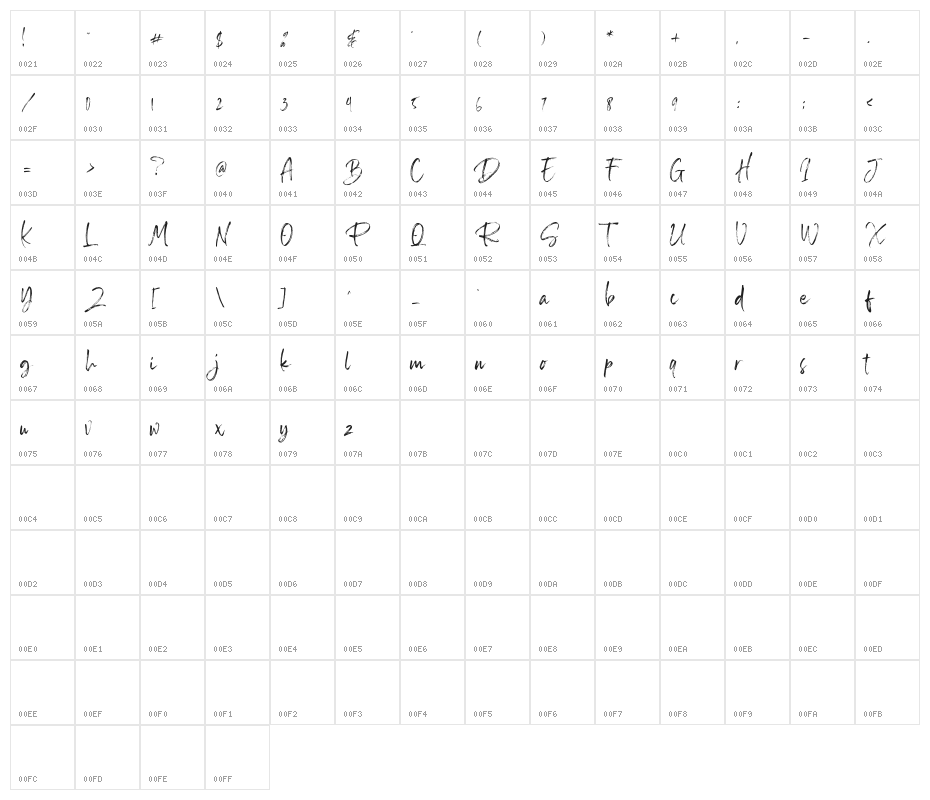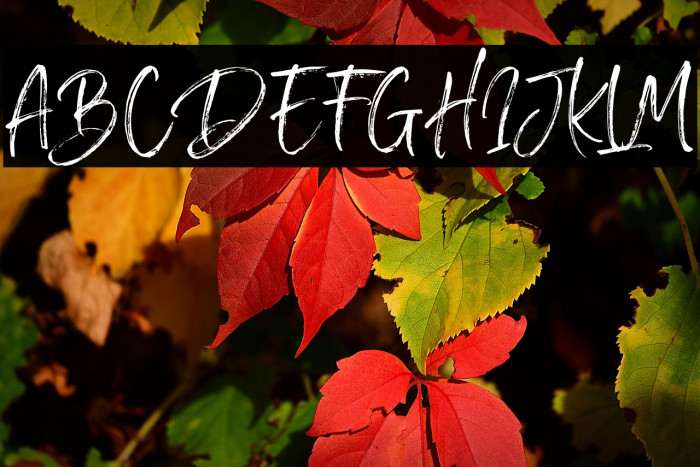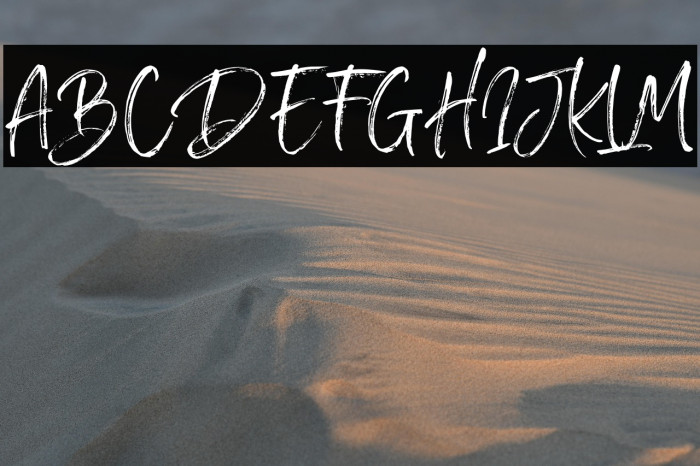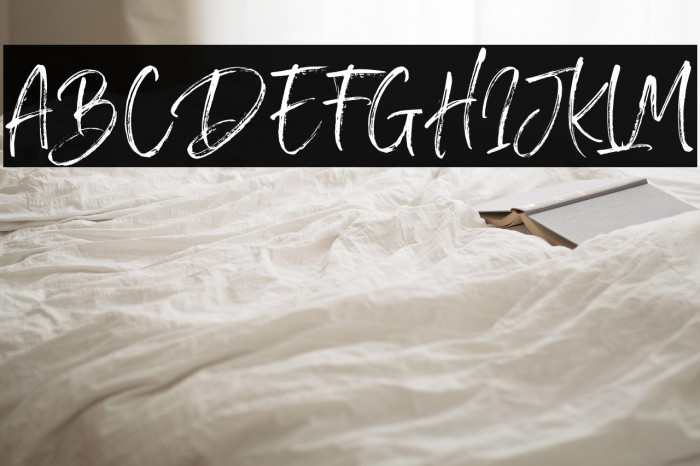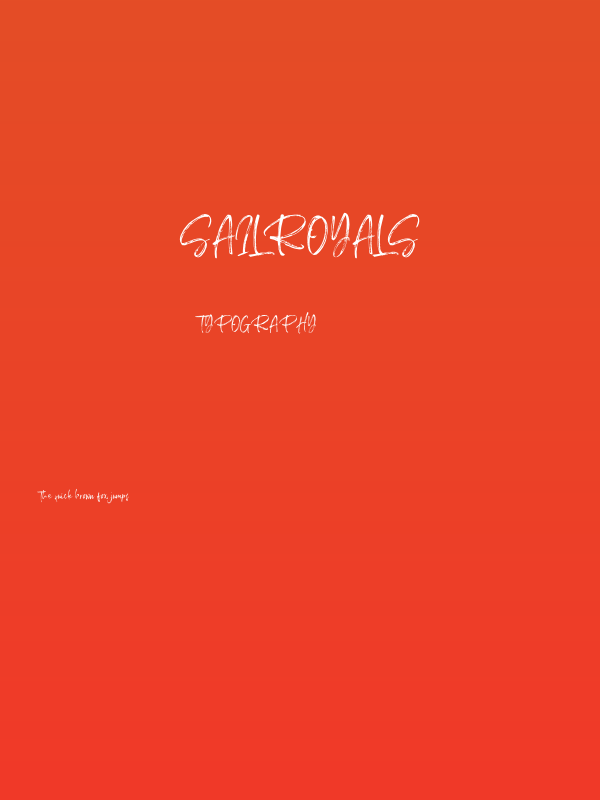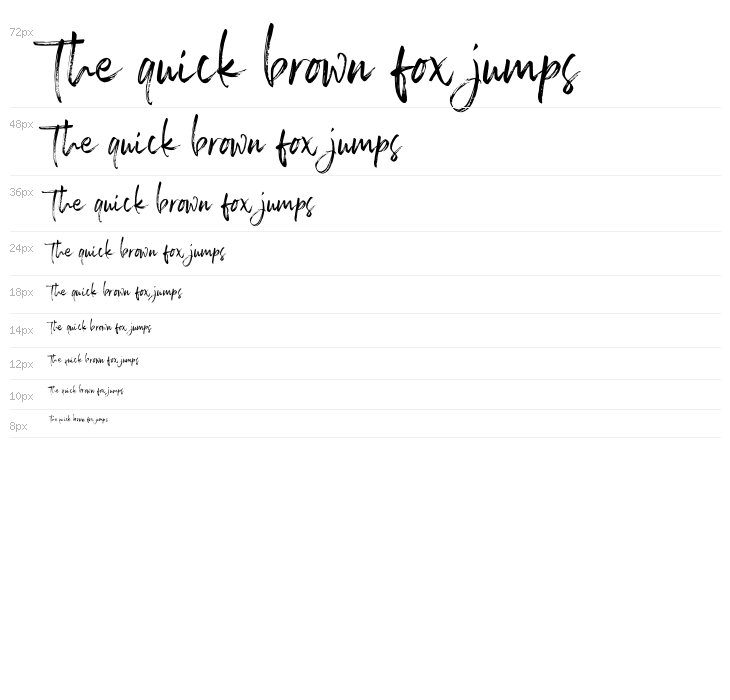
SailRoyals Font
SailRoyals Description
This font exudes a dynamic and expressive style, characterized by its brush-like strokes and fluid, handwritten appearance. The uppercase letters are bold and sweeping, with a sense of motion and energy, while the lowercase letters maintain a consistent flow, adding a touch of elegance. The numerals are distinct and maintain the same artistic flair, ensuring readability. Special characters are creatively integrated, enhancing the font's versatility. Overall, the font captures a sense of artistic freedom and creativity, making it suitable for a variety of design projects.
| Proposed Projects | Ideal for branding, invitations, posters, and creative design projects that require a personal touch. |